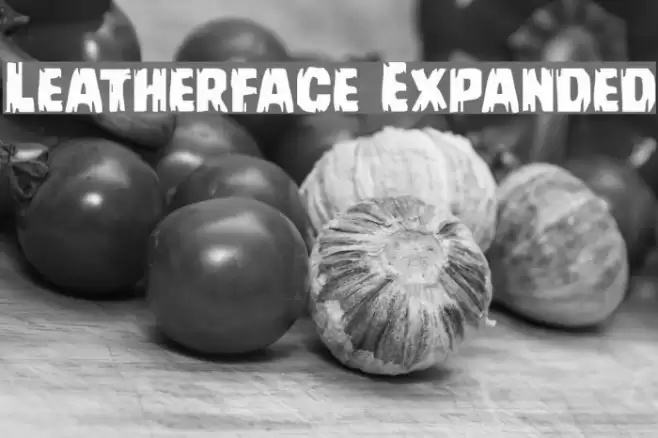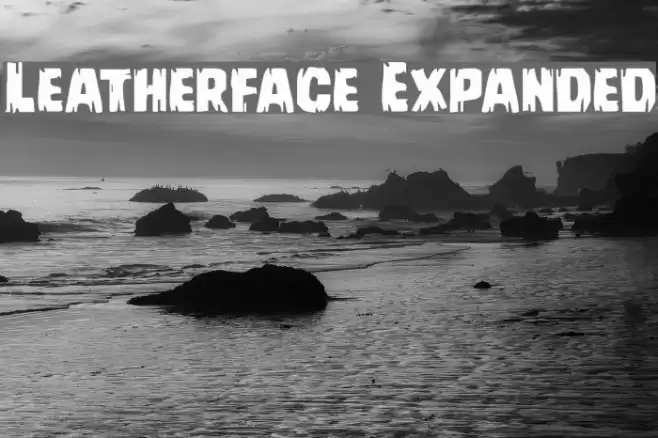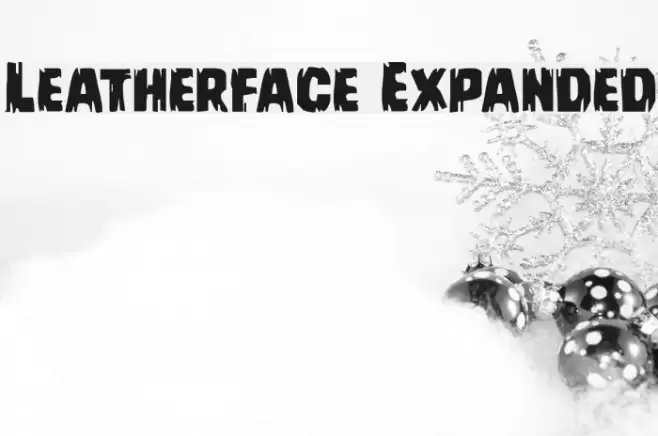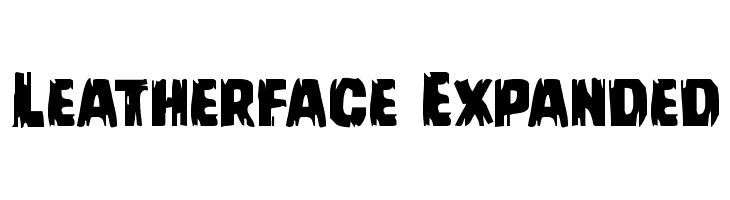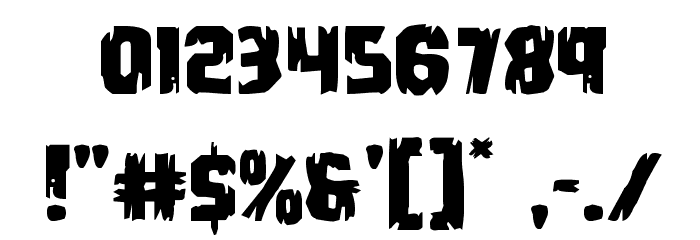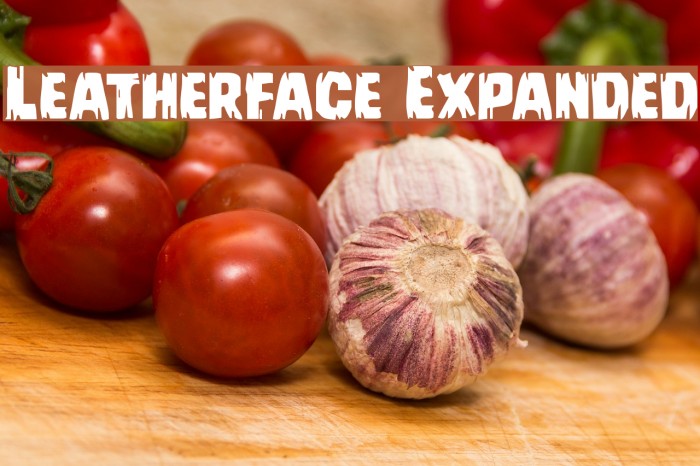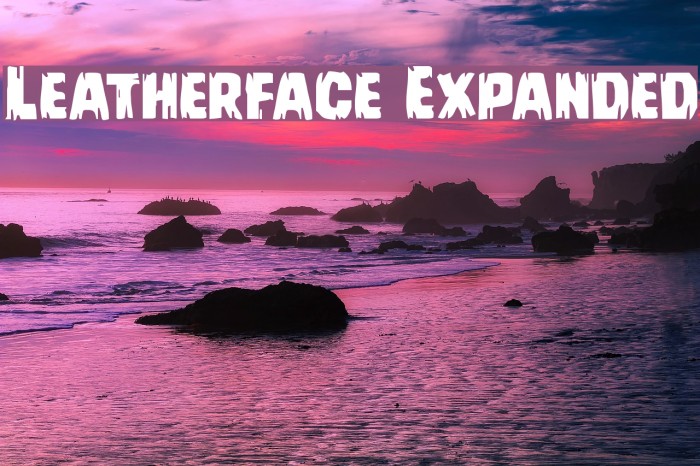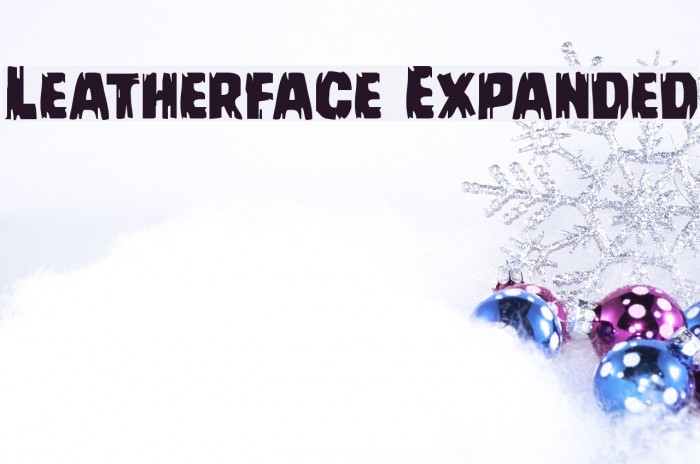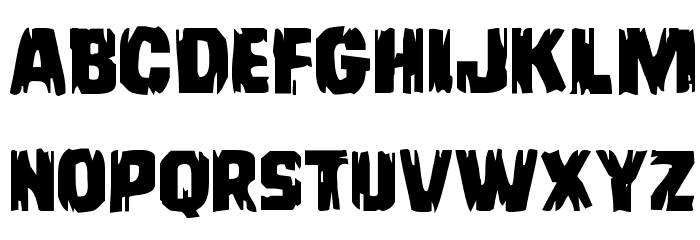
Leatherface Expanded Font
Leatherface Expanded Description
This font features a bold and rugged design, characterized by its distressed and jagged edges, giving it a raw and edgy appearance. The uppercase and lowercase letters maintain a consistent width, with a slightly expanded form that enhances its boldness. The numbers and special characters follow the same rugged style, making them cohesive with the overall design. This font is perfect for projects that require a strong, impactful visual presence, such as horror-themed designs, posters, or album covers. Its unique style captures attention and conveys a sense of intensity and drama.
A bold, rugged font with distressed edges, ideal for impactful designs from Uncategorized fonts.
- Proposed Projects: Horror-themed designs, posters, album covers, video game graphics.